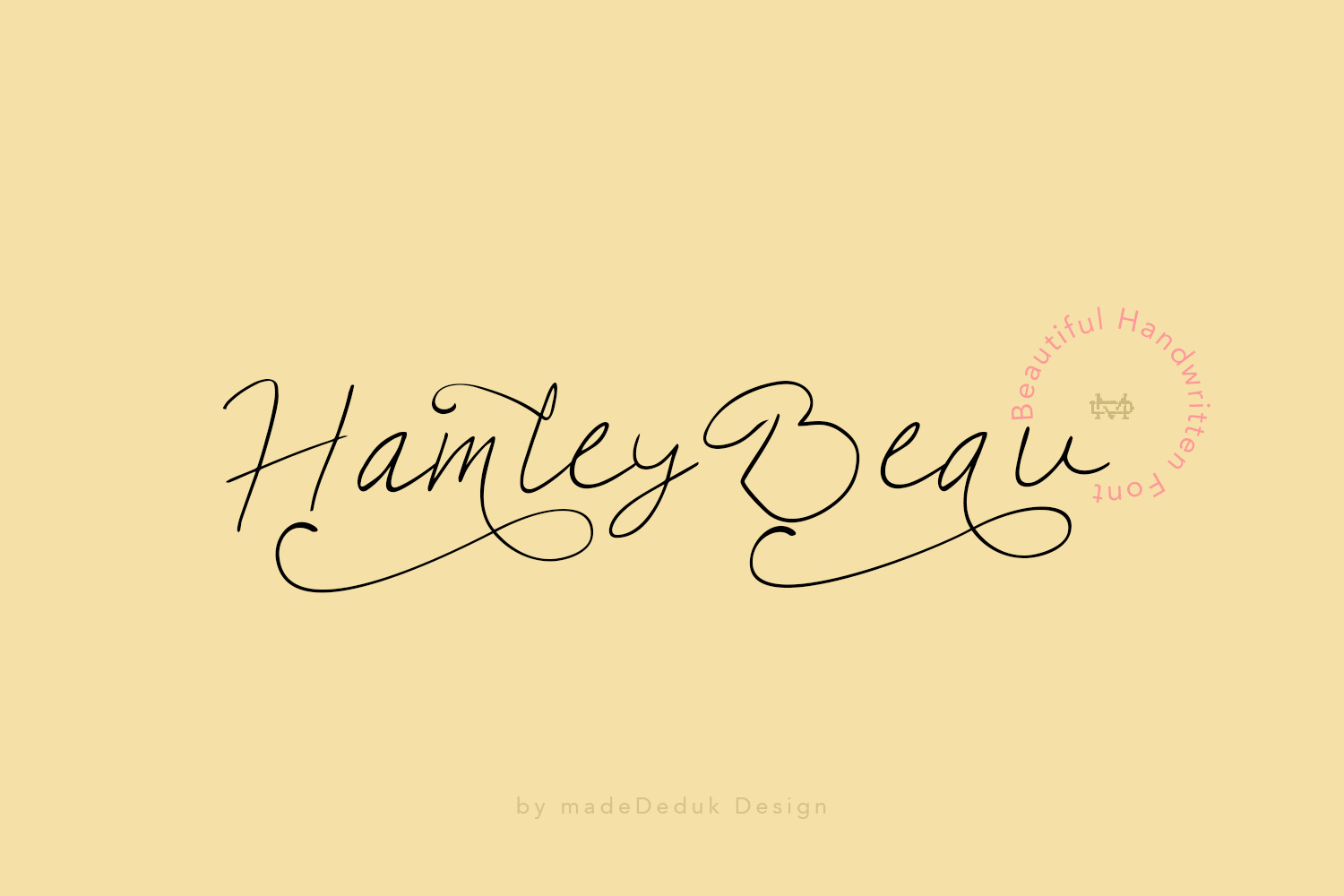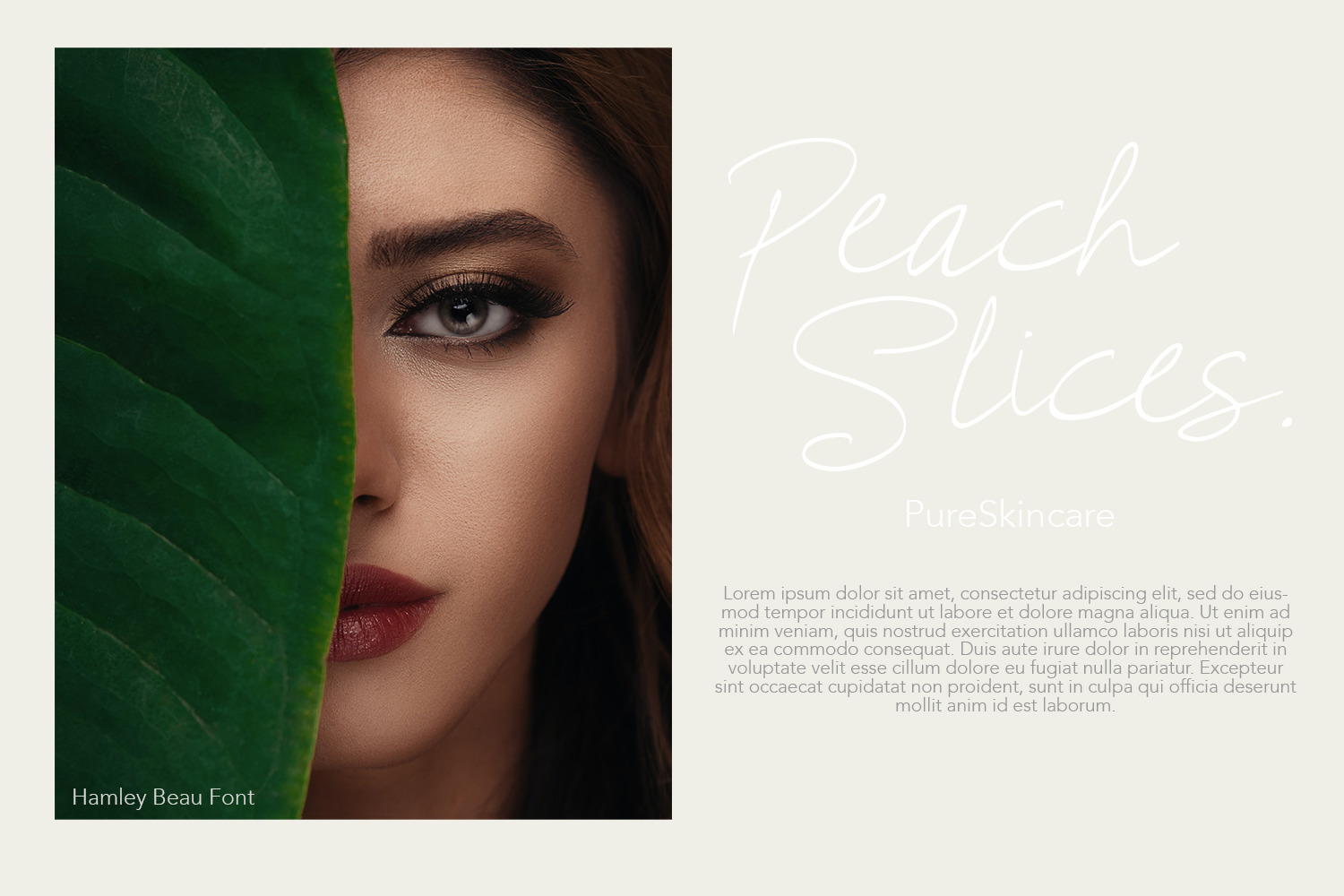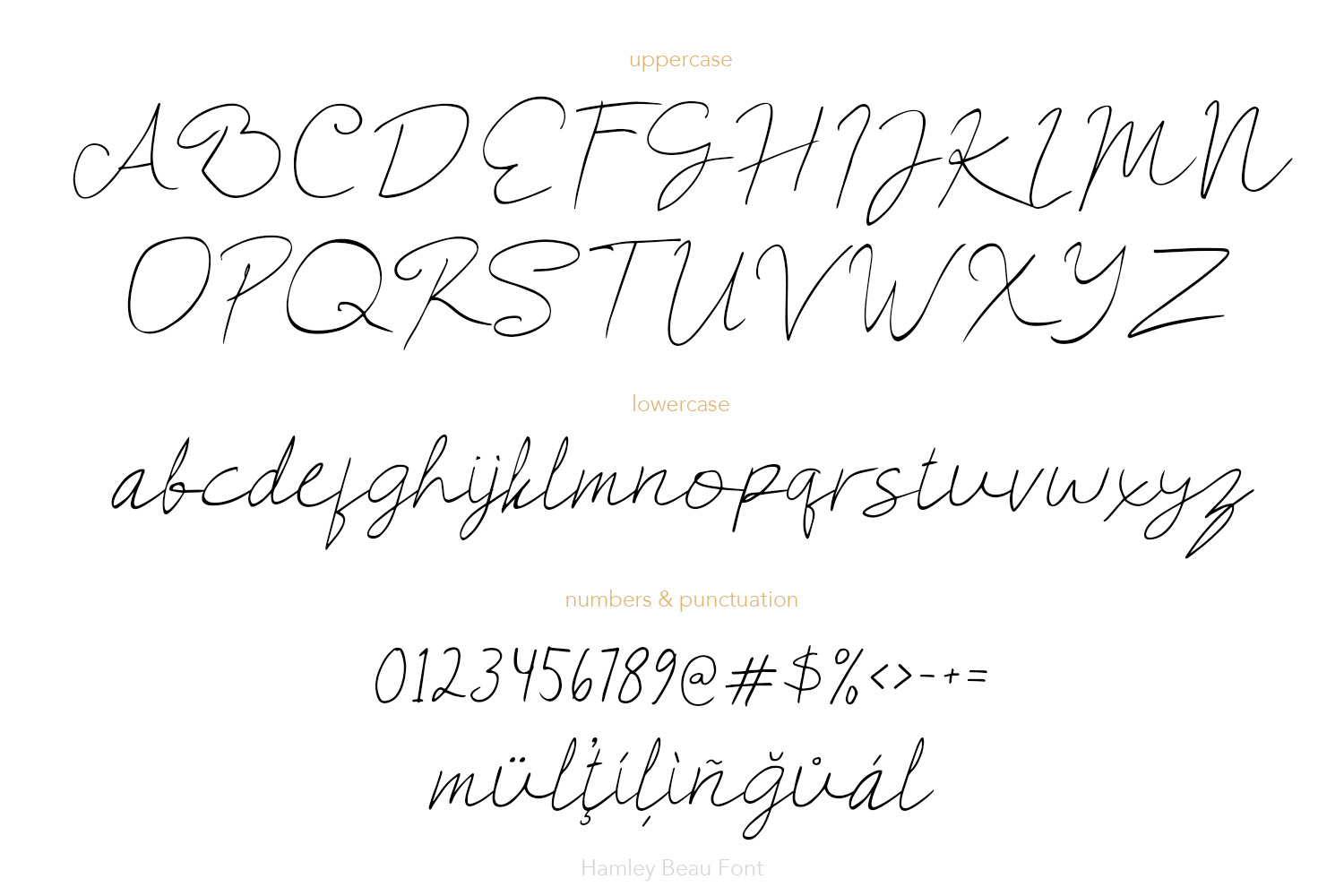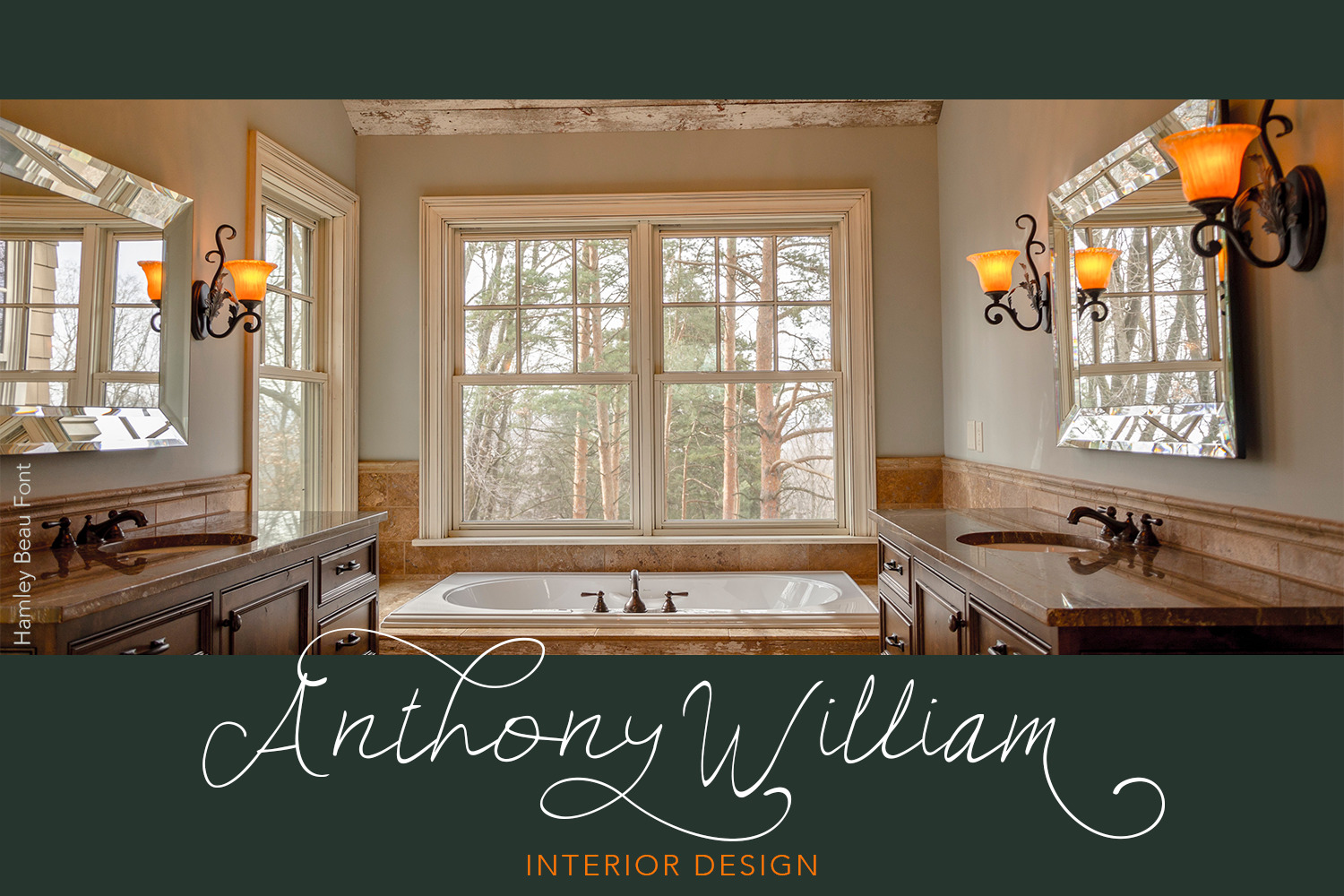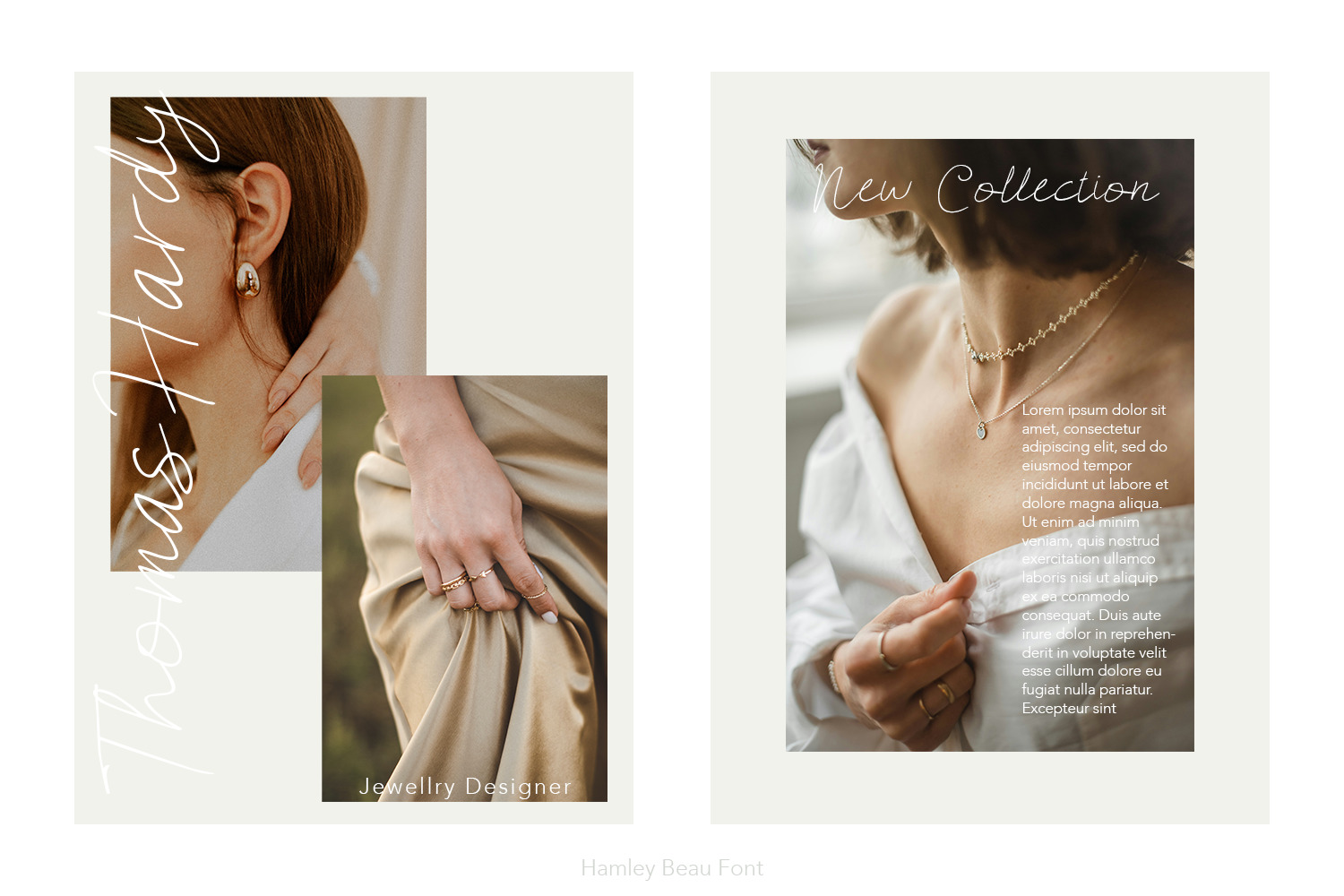
Hamley Beau Font
Really excited to introduce Hamley Beau is a realistic handwritten font to give an incredible impression for all your project design come with more than 40 ligatures and 100 Alternative to make everything look realistic handmade handwritten.
- Number & Symbol
- International Glyphs
- Ligature
- Alternative